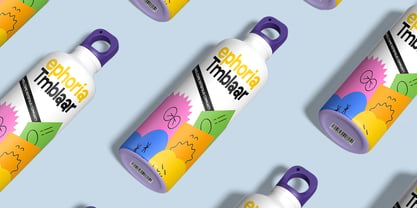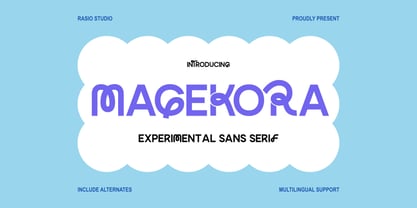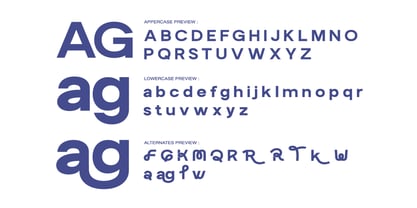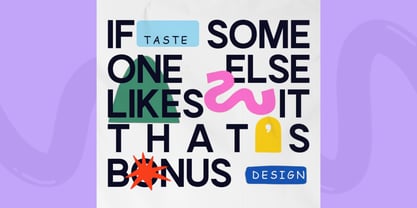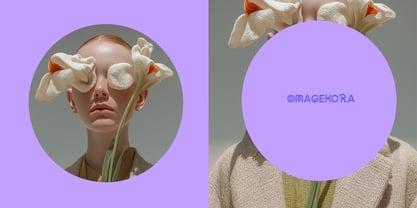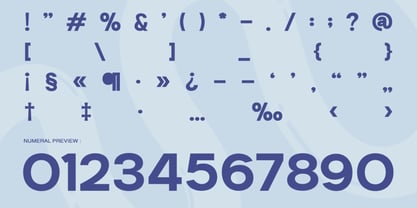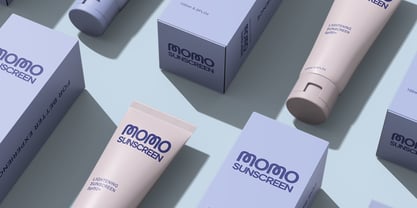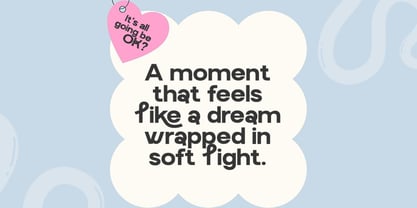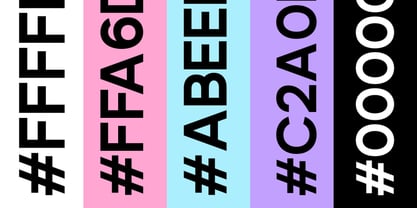
Magekora
La familia tipográfica Magekora fue diseñada por Fajar Indra y publicada por Rasio Studio. Magekora contiene 1 estilos. Más información sobre esta familia
Magekora is an experimental sans serif typeface with quirky alternates and unique character forms, designed to break convention and spark creativity. With bold curves and creative ligatures, this typeface merges modern structure with playful aesthetics, perfect for editorial headlines, branding visuals, and creative design layouts. Magekora is ideal for designers seeking a bold, experimental font that brings flair to any layout. Suitable for branding projects with artistic direction, editorial spreads, fashion lookbooks, lifestyle posters, album artwork, digital zines, and creative social media assets.